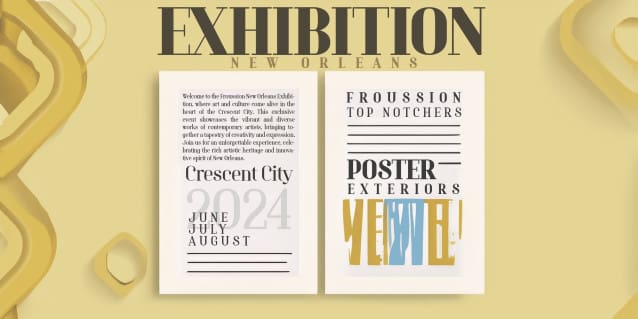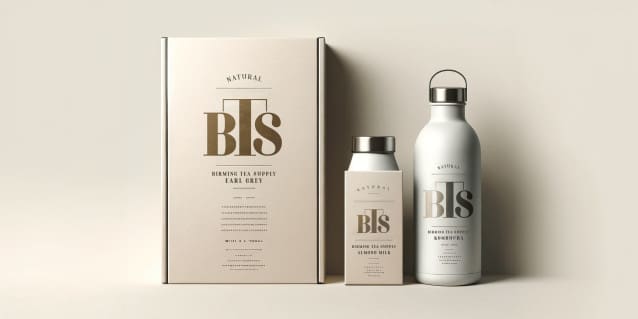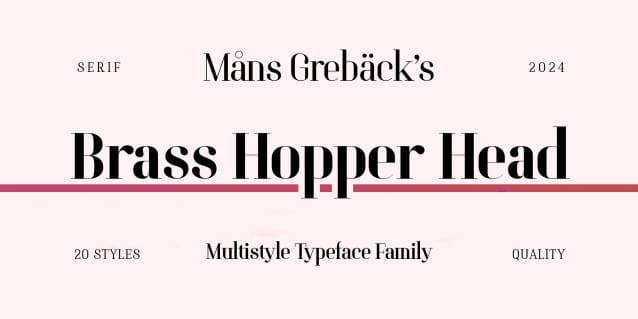
Brass Hopper Head Font
Brass Hopper Head Font is a serif font that embodies structural design. The strict shapes of each letterform lends a sense of stability, making it ideal for art exhibitions and architectural projects.
Brass Hopper is also available as a variable font, offering seamless adjustability in weight and style in hundreds of variations distilled down to a single font file. This allows for precise customization to match your design needs, providing flexibility and a wide range of typographic expressions within a single typeface.